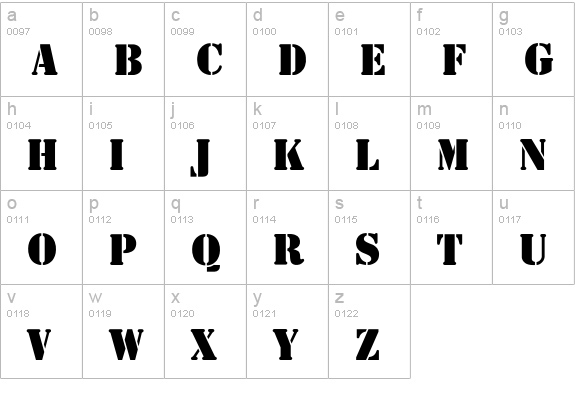
StencilDisplayOpti Font Details
StencilDisplayOpti is a modern and versatile font that combines the classic style of stenciled lettering with a contemporary touch. Its bold and clean lines make it perfect for a wide range of design projects, from posters to logos to labels. The sharp edges and distinctive spacing of this font create a unique visual impact that will draw attention to any text it is applied to. Best of all, StencilDisplayOpti is available for free download at FontsMarket.com. This means you can easily access this high-quality font without any cost, making it a valuable resource for designers and creatives looking to add a touch of sophistication to their work. Whether you're working on a branding project, a website design, or a print advertisement, StencilDisplayOpti is sure to make a bold statement and elevate the overall look of your design.